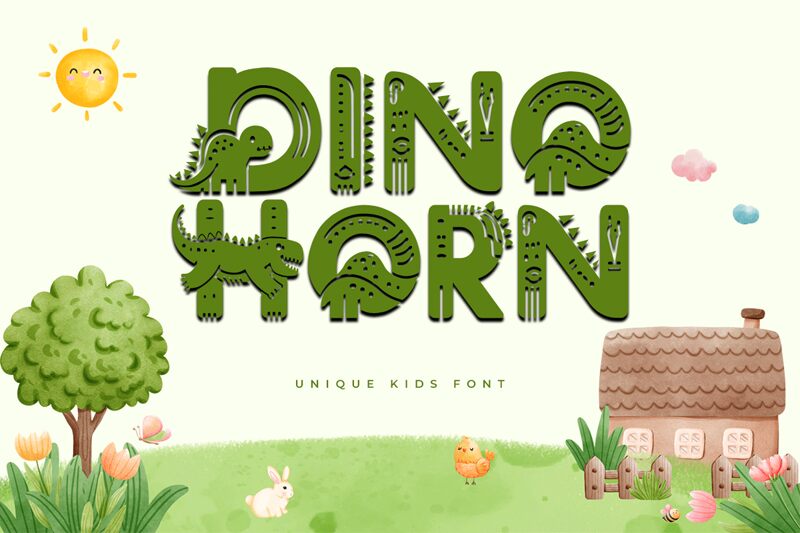
Dino Horn is a decorative thematic typeface inspired by the dinosaur era. This playful set of characters got its name from the thorns decorating the letters. Dino Horn uses the element of humor to engage and entertain viewers. Its lively and creative characters make it child-friendly and visually captivating. In addition to dinosaurs, the font gives off a magical touch, making users feel as if they are thorns from a cactus or from the bowels of an alien planet.
In this imaginative font, unleash and decorate printed and digital content that’s meant to engage a younger audience. Dino Horn is fantastic for invitations, children’s storybooks, games of all sorts, puzzles, brochures, advertisements, branding designs, posters, covers, and more.